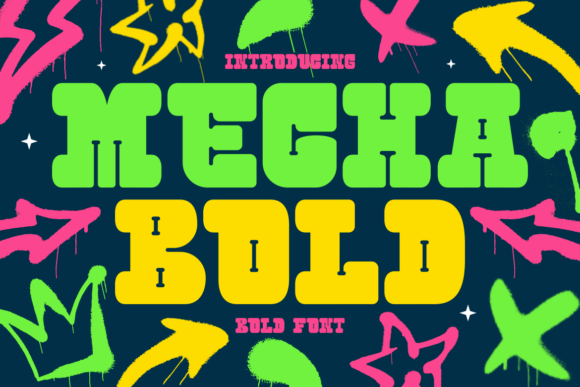
Introducing Mecha Bold – The Ultimate Bold Font for Vibrant Designs
In the world of typography, a bold font can make all the difference in capturing the attention of your audience. If you’re looking for a typeface that exudes energy, playfulness, and a retro-futuristic vibe, look no further than Mecha Bold. This vibrant and energetic bold font is designed for those who want to make a statement, and its unique blend of industrial and graffiti-inspired elements makes it perfect for a wide range of creative projects.
The Design of Mecha Bold
Mecha Bold is a slab-style display font that features thick, rounded letterforms and industrial-inspired slab details. The combination of bright neon green and electric yellow against a dark navy background creates a high-contrast, eye-catching appeal that’s sure to turn heads. The font is complemented by graffiti-style arrows, stars, and splashes, which add to its youthful, street-art energy.
The bold, chunky aesthetic of Mecha Bold ensures that every word stands out, making it a great choice for logos, packaging, and advertising that need a fun yet impactful touch. The smooth edges and slab-like terminals give the font a modern yet nostalgic look, making it a go-to for creative projects that demand a funky, high-energy personality.
Inspirations and Influences
Mecha Bold is inspired by pop culture, graffiti art, and retro gaming aesthetics. The font’s design is influenced by the bold, colorful, and playful style of graffiti art, as well as the futuristic and industrial elements of retro gaming. This unique blend of influences makes Mecha Bold a standout font that’s perfect for creative projects that need a bold and expressive touch.
The font’s playful yet assertive personality makes it perfect for urban branding, music covers, social media graphics, posters, and merchandise. Whether you’re looking to create a bold logo, eye-catching packaging, or a statement-making poster, Mecha Bold is the perfect choice.
Uses for Mecha Bold
- Urban branding: Mecha Bold’s bold, chunky aesthetic makes it perfect for logos, signage, and advertising for urban brands.
- Music covers: The font’s playful, energetic vibe makes it perfect for music covers, album art, and music-related promotional materials.
- Social media graphics: Mecha Bold’s bold, eye-catching style makes it perfect for social media graphics, including Facebook and Twitter headers, Instagram posts, and more.
- Posters: The font’s large, statement-making style makes it perfect for posters, flyers, and other promotional materials.
- Merchandise: Mecha Bold’s bold, playful style makes it perfect for merchandise, including t-shirts, hats, and other apparel.
Why Choose Mecha Bold?
- Unique style: Mecha Bold’s unique blend of industrial and graffiti-inspired elements makes it a standout font that’s sure to turn heads.
- Versatility: The font’s bold, chunky aesthetic makes it perfect for a wide range of creative projects, from logos and packaging to posters and merchandise.
- Playful yet assertive: Mecha Bold’s playful yet assertive personality makes it perfect for creative projects that need a bold and expressive touch.
- Easy to use: The font is easy to read and works well in a variety of contexts, making it perfect for designers of all skill levels.
In conclusion, Mecha Bold is a vibrant and energetic bold font that’s perfect for creative projects that need a bold and expressive touch. Its unique blend of industrial and graffiti-inspired elements makes it a standout font that’s sure to turn heads. Whether you’re looking to create a bold logo, eye-catching packaging, or a statement-making poster, Mecha Bold is the perfect choice. So why wait? Download Mecha Bold today and inject life into your designs!
- What is Mecha Bold? Mecha Bold is a bold, slab-style display font that’s perfect for creative projects that need a bold and expressive touch.
- What inspired Mecha Bold? Mecha Bold is inspired by pop culture, graffiti art, and retro gaming aesthetics.
- What can I use Mecha Bold for? Mecha Bold is perfect for a wide range of creative projects, including urban branding, music covers, social media graphics, posters, and merchandise.
- Is Mecha Bold easy to read? Yes, Mecha Bold is easy to read and works well in a variety of contexts.